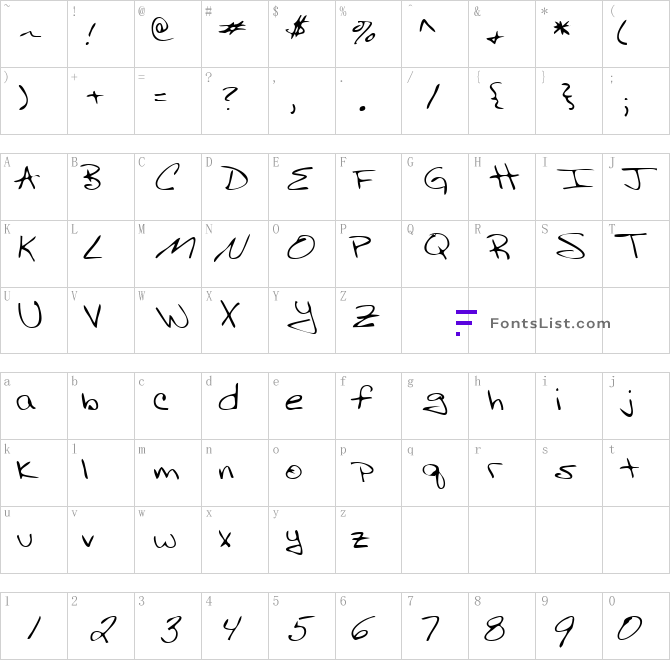
- Font Name:AdamsHand
- Subfamily:Weatherly Systems, Inc. AdamsHand Regular
- Full Name:AdamsHand Regular
AdamsHand-Regular-copy-2-.ttf is a very beautiful artistic font, AdamsHand-Regular-copy-2-.ttf is widely used in the design and printing of various books and pictures,AdamsHand-Regular-copy-2-.ttf has a strong visual impact,AdamsHand-Regular-copy-2-.ttf is a commonly used font in newspapers, magazines and books, and is used in posters, e-commerce Poster design, store design, logo design, font design and other fields.AdamsHand-Regular-copy-2-.